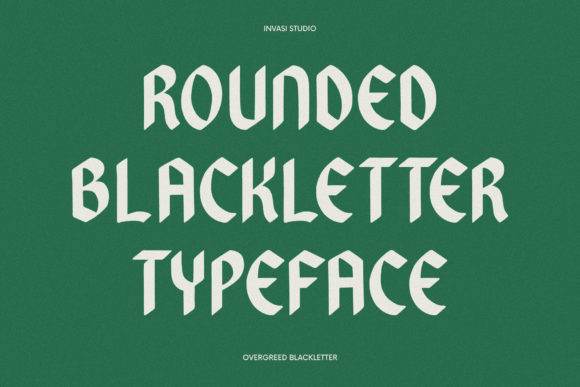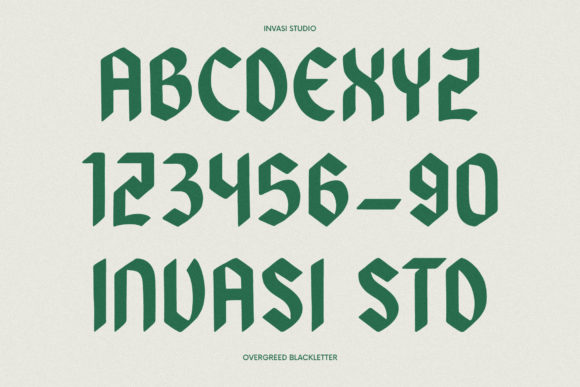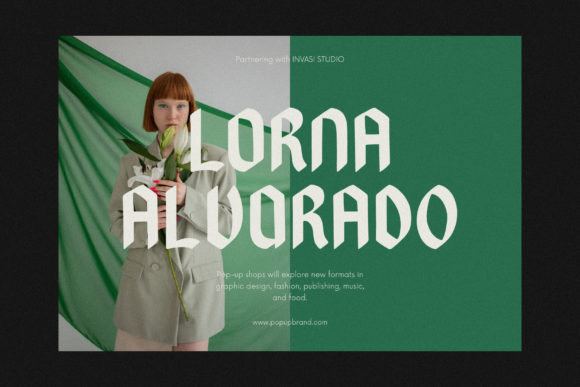
Introduction to Overgreed Font
Have you ever been working on a creative project, and just as you’re about to add the final touches, you stumble upon the perfect design element that takes it to the next level? For designers, that moment is priceless. It’s the spark that ignites a new idea, a fresh perspective, or a bold statement that elevates the entire project. For me, that moment came when I discovered the Overgreed Font.
With its unique blackletter design, the Overgreed Font is a game-changer for any creative project. Whether you’re crafting a custom card, branding a new business, or creating labels for a product, this font is sure to add a touch of sophistication and elegance. Its high-quality design makes it a valuable resource for designers, and the best part? It’s available for free download, making it accessible to everyone.
As a design resource, the Overgreed Font offers a transparent background, allowing you to easily integrate it into your projects. Its versatility and unique style make it a must-have for any creative project, and we’re excited to share its benefits with you.
Key Features of Overgreed Font
- High-quality font design for creative projects: Overgreed Font is a unique and stylish font that can add a touch of elegance to any design.
- Transparent background: The Overgreed Font features a transparent background, allowing for easy layering and blending with other design elements.
- High resolution: The Overgreed Font is designed at a high resolution of 300 DPI, making it suitable for print and digital applications.
- Unique and creative: Overgreed Font is designed to add a touch of whimsy and creativity to any design project, making it an excellent choice for artists and designers.
- Perfect for design resources: Whether you’re working on a personal project or a commercial design, Overgreed Font is an excellent resource to have in your design toolkit.
Honest Review: Overgreed Font
I recently stumbled upon the Overgreed Font, and I’m excited to share my thoughts on this design resource. As a designer, I’m always on the lookout for high-quality fonts that can elevate my creative projects.
The Overgreed Font is a great find, especially considering it’s available for free download. The font has a unique, bold aesthetic that’s perfect for making a statement in designs. ✨
- Unique, bold aesthetic that’s perfect for making a statement in designs
However, there are a few limitations to consider. The font is only available in a limited color palette, and it may not be suitable for designs that require a transparent background. ⚠️
Overall, I’m impressed with the Overgreed Font, and I think it’s a great addition to any designer’s toolkit. While it may not be perfect, its unique design and free availability make it a valuable resource for creative projects.
Getting the Most Out of the Overgreed Font
To get the most out of the Overgreed Font, experiment with different font sizes, colors, and styles to create unique designs. Use the font in combination with other design elements, such as images and graphics, to create a high-quality design.
Is the Overgreed Font suitable for designs with a transparent background?
The Overgreed Font is designed to be highly legible, making it an excellent choice for designs with a transparent background. The font’s high-quality design ensures that the text remains clear and readable, even when placed over complex backgrounds or images. This makes it an ideal choice for creative projects requiring a clean and sophisticated look.